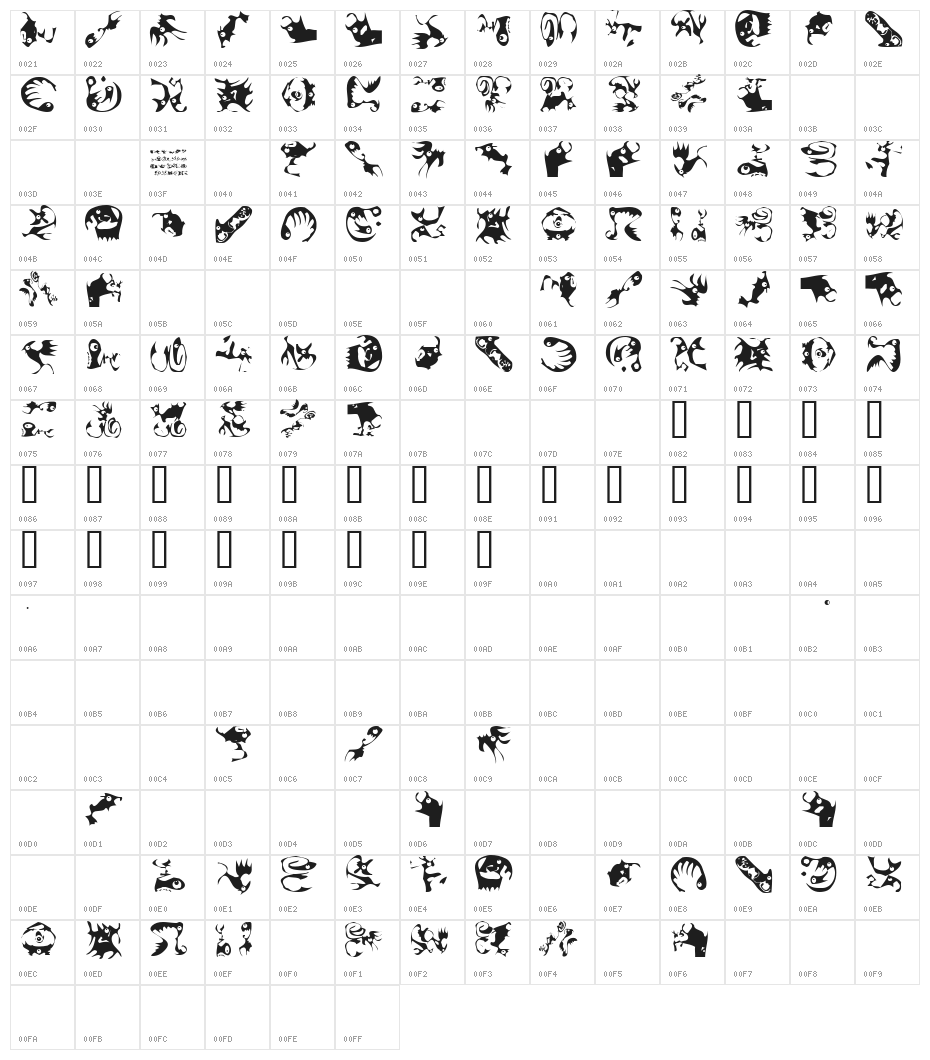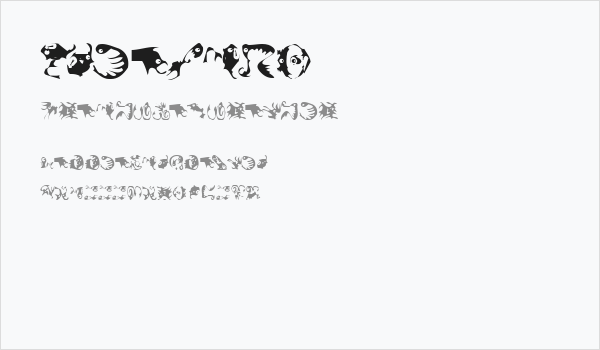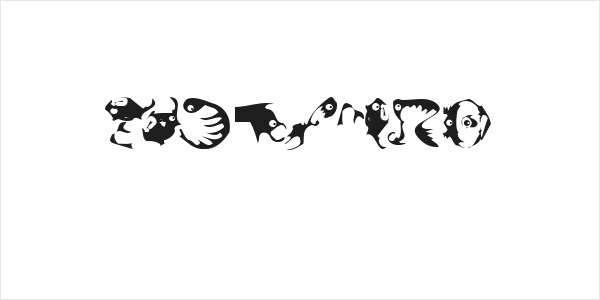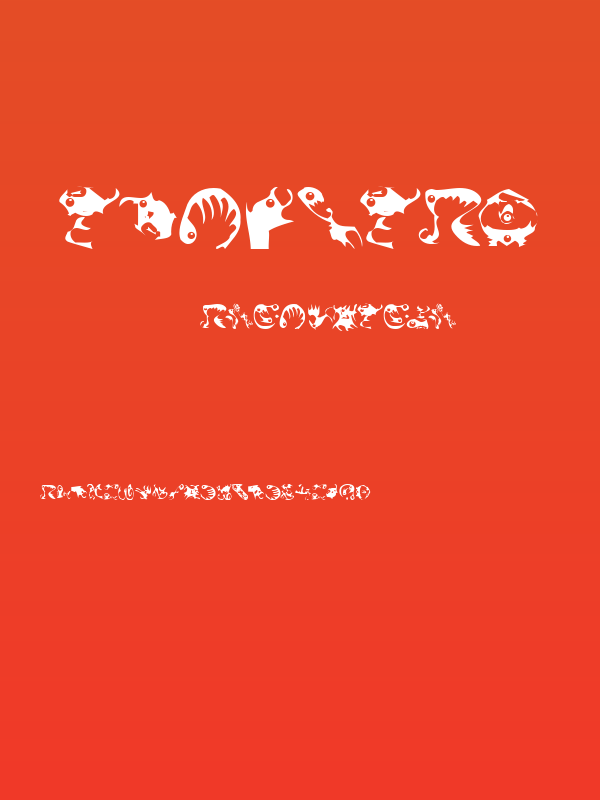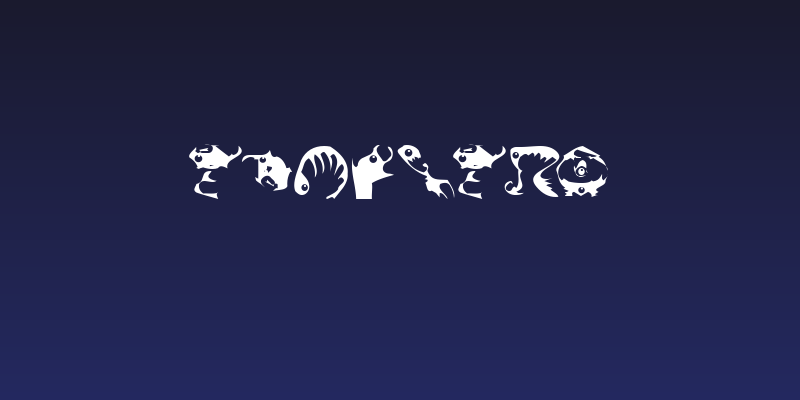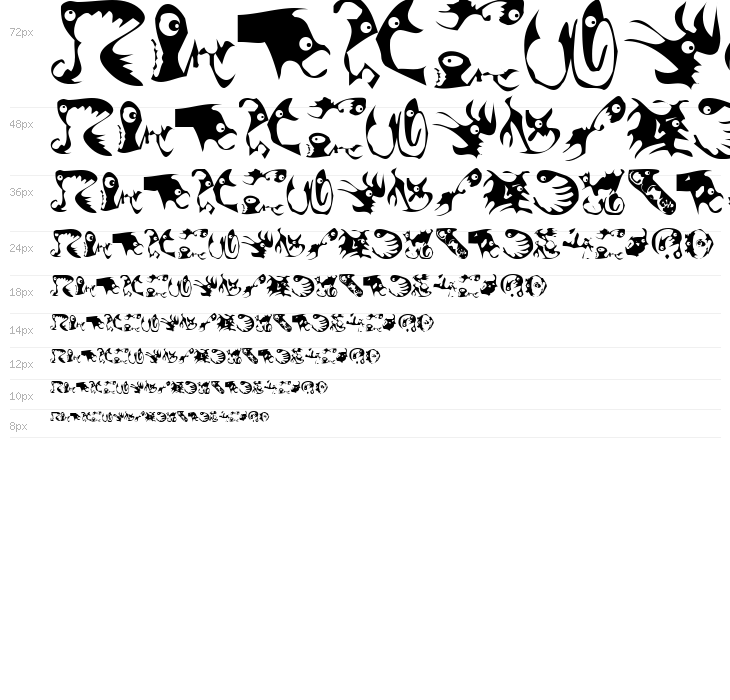
AmoebaTs Font
AmoebaTs Description
This font is a highly decorative and whimsical typeface, featuring characters that are creatively transformed into abstract, amoeba-like shapes. Each letter and number is uniquely designed with intricate details, making them resemble playful creatures or organic forms. The font is bold and eye-catching, with a strong visual presence that makes it suitable for artistic and unconventional design projects. Its distinct style is characterized by a high level of creativity and imagination, offering a unique visual experience.
| Use Case | Logos, Posters, Artistic projects |
| Proposed Projects | Ideal for artistic projects, children's book illustrations, creative posters, and unique branding materials. |